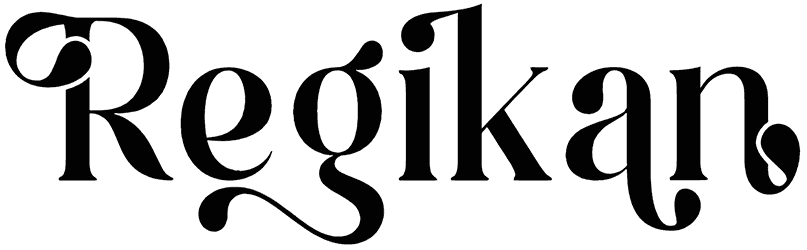
Regikan Font
To make a good first impression on your viewers through your words, you need something as tasteful as Regikan with its flourishing characters and nice ligatures. Basically, it’s a fashion font with powerful marketing potential.
With such a stunning swirly font on your business cards, the name of your brand will be stuck in everyone’s mind forever. That should be more than enough to let everyone know about your gourmet dishes, beautifully designed pieces of jewelry, artistic photos, and more.